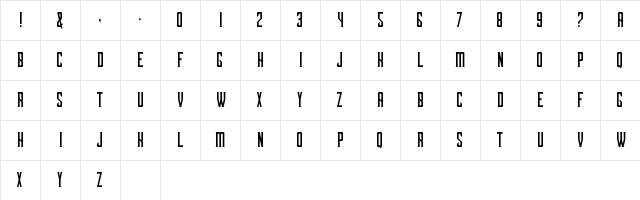
Dark Ministry Regular
Design Context for Dark Ministry
Dark Ministry is a composed and adaptable typeface that performs quietly and consistently across a wide range of design contexts.